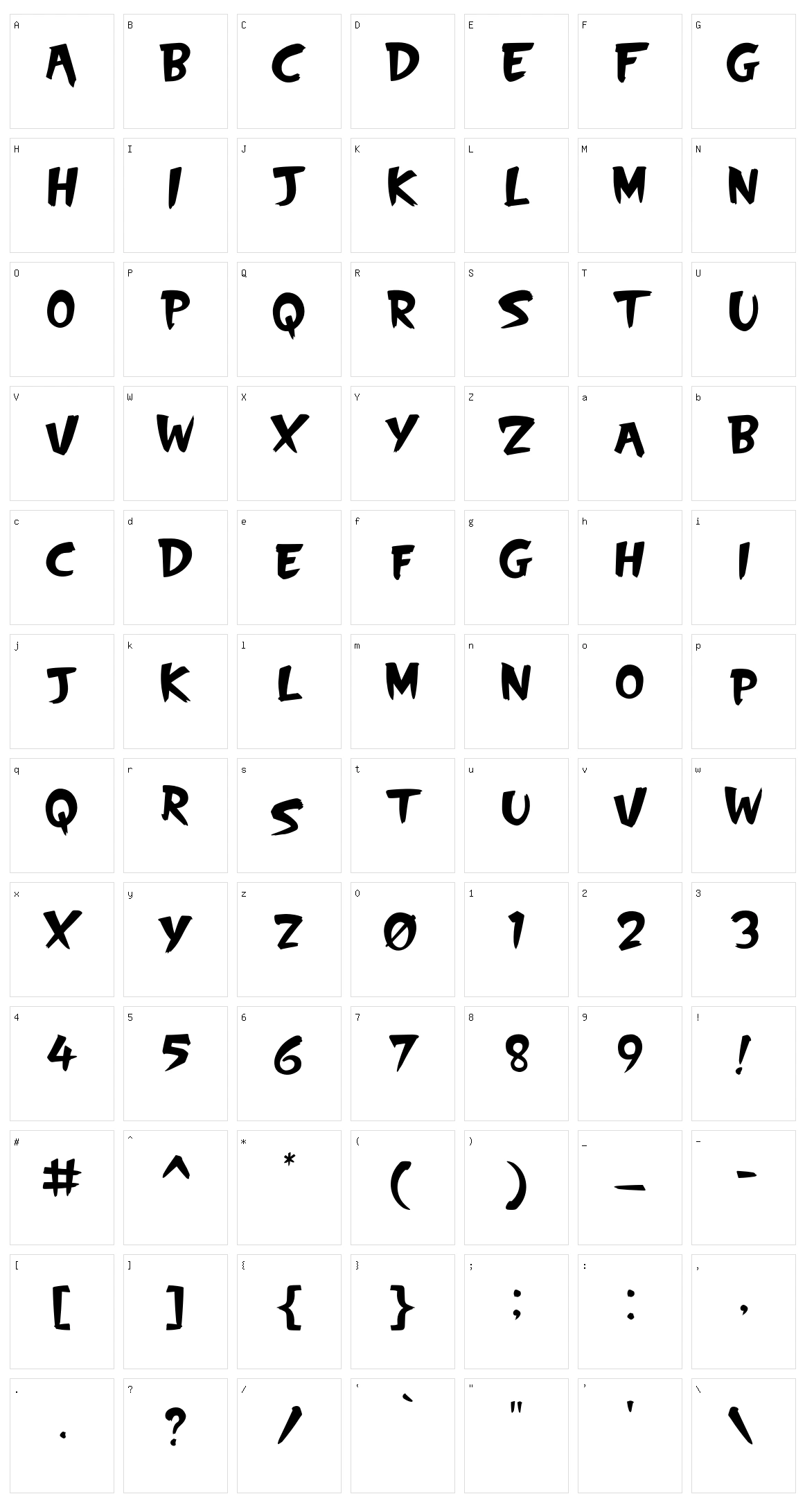
The free font SkyScrappers is carefully designed by Tom Waterhouse, showcasing a thoughtful balance of creativity and usability and falls under the Script font style. When you download the ZIP file, it contains only 28.5 KB of font files, making it lightweight and quick to download. Please review the license details below to understand permitted usage and distribution rights. If license information is not available, we recommend using this font for personal projects only or contacting the author directly for commercial usage permissions.